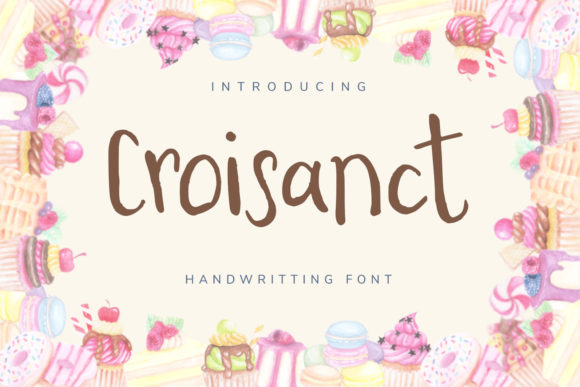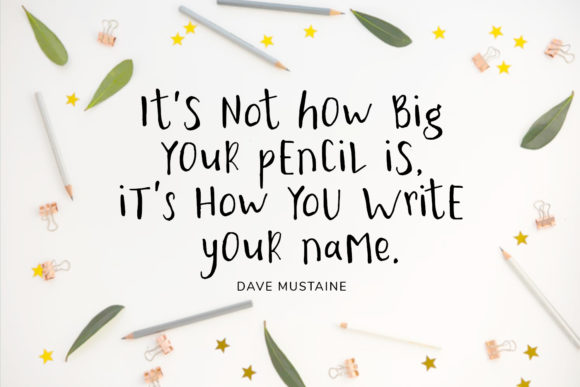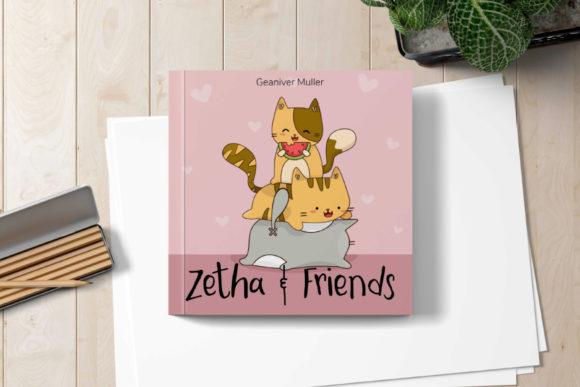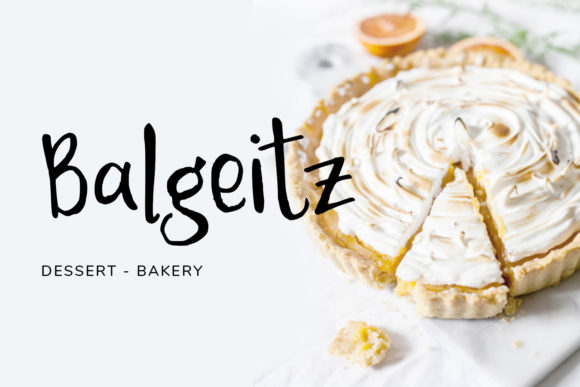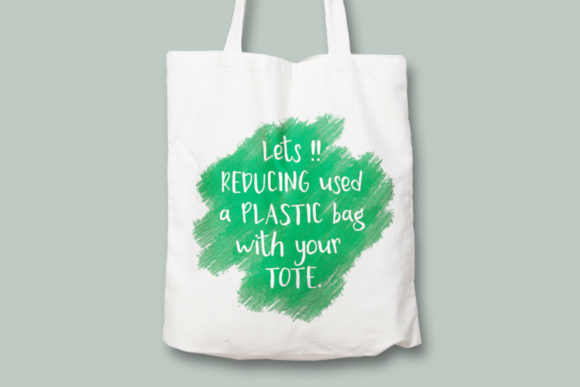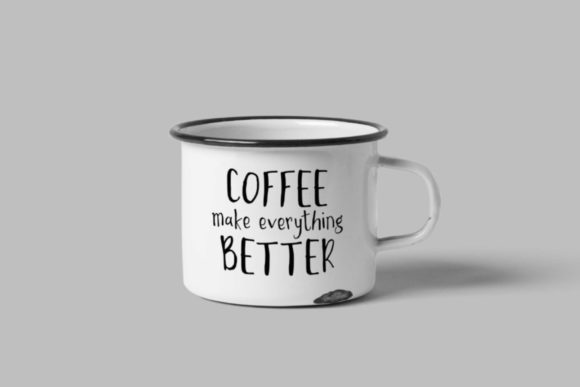
HomeScript FontsCroisanct Font Script Fonts Croisanct Font FacebookXPinterestWhatsApp Croisanct Font Poster 2 Croisanct Font Poster 3 Croisanct Font Poster 4 Croisanct Font Poster 5 Croisanct Font Poster 6 About Croisanct Font Croisanct is a sweet handwritten font that is perfect for anything that requires a cute and happy look. DOWNLOAD ON CREATIVE FABRICAThis font is sold and delivered by Creative Fabrica. Font Canyon may earn a commission if you buy through this link. People also explored Hey Benito Font Mikayla Print Font Bellezza Ludhovicf Bold Font Ladonna Font Memonoglia Font Rollasfen Nacketan Font Shelya Font Hello World Font 296 0 TagsCroisanct Font Previous articleRuthyne FontNext articleJamilah Script Font LEAVE A REPLY Cancel reply Comment: Please enter your comment! Name:* Please enter your name here Email:* You have entered an incorrect email address! Please enter your email address here Website: Save my name, email, and website in this browser for the next time I comment. Personal Use Free Monogram Calligraphy Personal Use Free Read more about this font The Sweet Neo Personal Use Free Read more about this font Market Love Personal Use Free Read more about this font Little Pixel Personal Use Free Read more about this font BLOG Modern Sans-Serif Fonts That Brands Love in 2025 In 2025, modern sans-serif fonts remain a top choice for brands looking to project clarity, professionalism, and... How to Cut Any Font on Cricut: Convert a Font to SVG (Free) Where to Buy American Fonts Online in 2024 Best Fonts for YouTube Videos: Make Your Thumbnails Stand Out